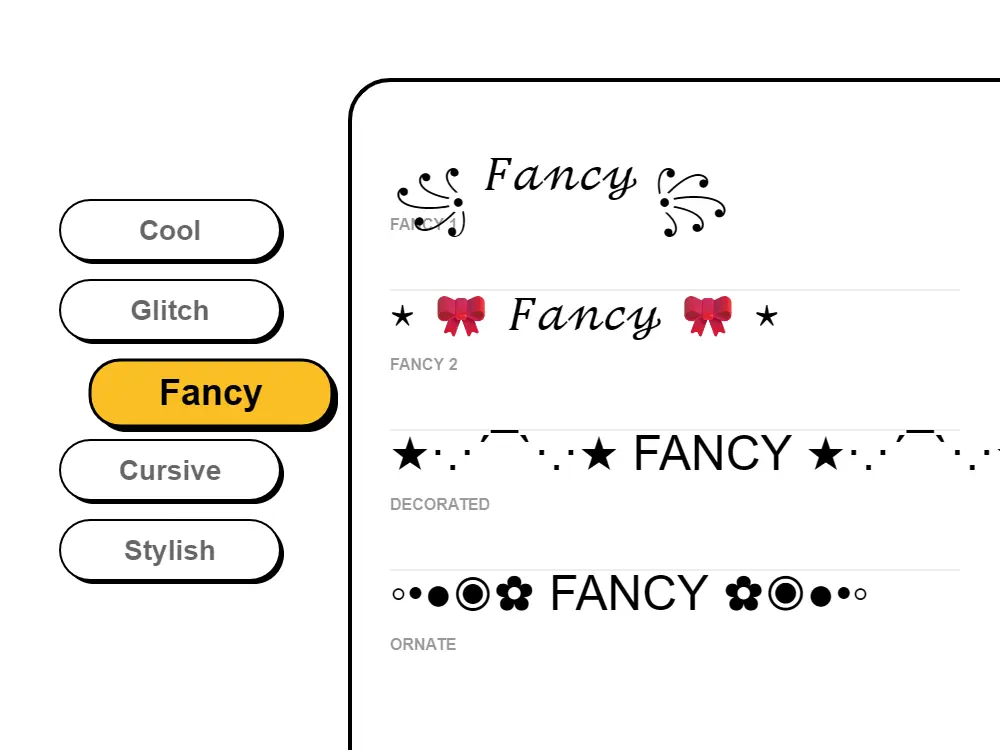
Fancy Text Generator (๐“ฌ๐“ธ๐“น๐”‚ ๐–†๐–“๐–‰ ๐“น๐“ช๐“ผ๐“ฝ๐“ฎ) โ€• Free Fancy Fonts
Decorative and elegant Unicode fonts for usernames, bios, and creative writing. Hundreds of stylish letters ready to copy and paste.
Create fancy fonts for bios, usernames & creative content. Our fancy text generator makes elegant, decorative fonts and ornate letters โ€” script, Gothic, Victorian, and more. Copy paste fancy fonts instantly. Get fancy Instagram bio fonts, stylish Twitter/X text, Discord server names, and decorated letters. The best free fancy font generator with sophisticated Unicode styles. Perfect for Instagram bios, wedding and event posts, and creative brand names.
Generate unlimited categories.fancy text styles and copy-paste them instantly for your bio, captions, and comments to make your profile stand out.
Fancy fonts are the digital equivalent of calligraphy โ€” elegant, eye-catching, and unmistakably sophisticated. Our fancy text generator gives you 100+ decorative Unicode styles: ornate script letters, flourished serifs, Gothic blackletter, Victorian flourishes, and embellished characters that elevate any text from ordinary to exceptional. Whether you need elegant fancy text for an Instagram bio, a decorated username for Discord or Twitter, ornate lettering for a wedding or event post, or stylish text for a creative brand โ€” Fontb's fancy font generator has the style for you. Unlike downloadable font files that only display on devices where the font is installed, fancy Unicode fonts work everywhere: paste them into any Instagram bio, TikTok username, Discord server name, or any other platform, and they display exactly as designed on every phone and browser.
Because every fancy font here uses Unicode characters from the Mathematical Alphanumeric Symbols and Letterlike Symbols blocks, your elegant text travels with your content across every platform. Paste fancy text into Instagram bios, TikTok captions, Twitter/X display names, Discord server names, WhatsApp statuses, or Facebook posts and it renders identically on every phone, browser, and app โ€” no fonts installed, no apps needed, completely free. This is why fancy fonts copy and paste correctly into Instagram when regular font files never could: they're Unicode characters, not font overlays. For the best results, use ornate script styles for personal bios, Gothic letterforms for gaming server names, and double-struck or decorated serifs for brand names and creative projects.
How Do Fancy Fonts Work โ€” and Why Can You Paste Them Anywhere?
Fancy fonts aren't font files โ€” they're Unicode characters. The Unicode standard, used on every phone, computer, and browser in the world, includes an entire section of alphanumeric characters designed to look like different typographic styles: ornate script letters like ๐’œ and โ„ฌ, Gothic blackletter like ๐”„ and ๐”…, double-struck letters like ๐”ธ and ๐”น, and decorated variants across dozens of styles. When you paste a fancy font from this generator into Instagram, TikTok, Discord, or any other platform, the app receives standard Unicode text โ€” it just happens to look fancy. No font file needs to be installed on the receiving device. No special app is required. The fancy styling is built into the character itself, which is why fancy fonts display identically on every iPhone, Android phone, Windows PC, and Mac running a current operating system. One thing to know: if a fancy character appears as a box (called 'tofu') on an older device, that device's system font doesn't include that Unicode range. Simply switch to a different fancy style from the generator โ€” each style uses a different Unicode block, and most display correctly on all current devices.
What is a fancy text generator and how does it work?
A fancy text generator converts regular text into decorative Unicode characters that look like elegant, ornate, or stylized fonts โ€” without any font files or special software. Our fancy font generator maps every letter you type to its Unicode equivalent in styles like ornate script (๐’œโ„ฌ๐’ž), Gothic blackletter (๐”„๐”…๐”Š), double-struck (๐”ธ๐”นโ„‚), and dozens of other decorative alphabets. The result is fancy text you can copy and paste into any app โ€” Instagram, TikTok, Discord, Twitter โ€” and it renders exactly as styled on every device, because the fancy look is built into the Unicode character itself, not a font file overlay.
Do fancy fonts work on Instagram, TikTok, Discord, and other platforms?
Yes โ€” fancy fonts from this generator work on every platform that supports Unicode text, which includes Instagram bios, captions, and comments; TikTok bios and usernames; Discord server names, channel names, and nicknames; Twitter/X display names and bios; Facebook posts; WhatsApp statuses; and many more. Because fancy fonts are standard Unicode characters (not images or CSS styling), they travel with your text and display correctly on every iPhone, Android phone, and desktop browser running a current OS.
What are the best uses for fancy text?
Fancy text works well for: Instagram bios and captions that need a polished, editorial look; Twitter/X display names and usernames for creative brands; Discord server names for luxury, lifestyle, or arts communities; wedding and event social media posts where elegant typography sets the right tone; Etsy shop names and product titles; creative writing quotes shared on social media; and any content where you want text to feel more designed and intentional. Fancy fonts are particularly popular for personal brand accounts, fashion content, and anything that signals sophistication.
What's the difference between fancy Unicode fonts and regular downloadable fonts?
Regular downloadable fonts are .ttf or .otf files you install on your device โ€” they only display correctly if the reader also has the font installed. Fancy Unicode fonts work the opposite way: instead of a font file, they use specific Unicode characters that already exist on every modern device as part of the OS. When you paste fancy Unicode text, the reader doesn't need anything installed โ€” the fancy styling is part of the character itself. This is why fancy fonts from this generator paste correctly into Instagram while regular font files never could.